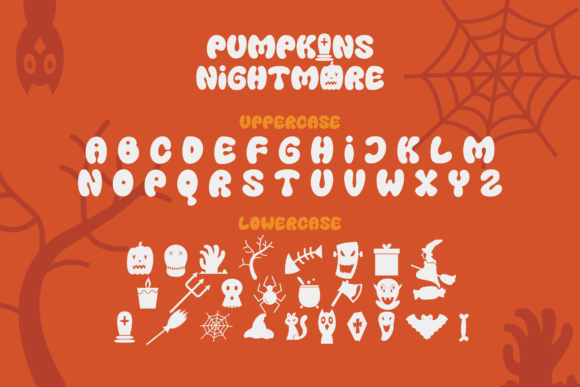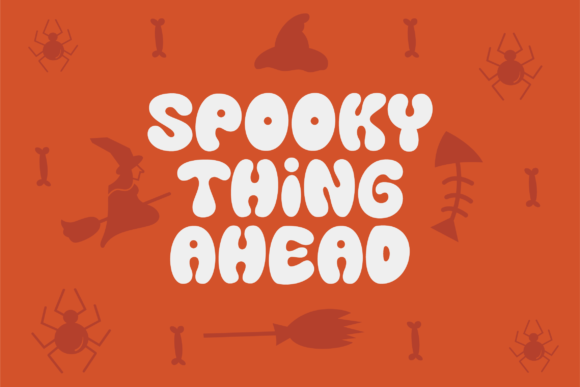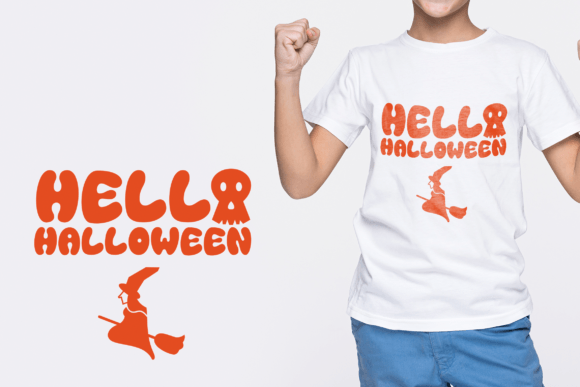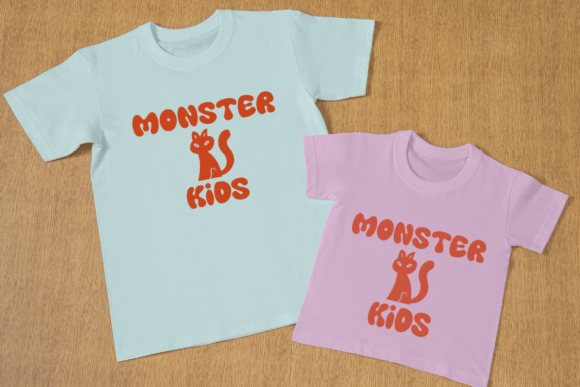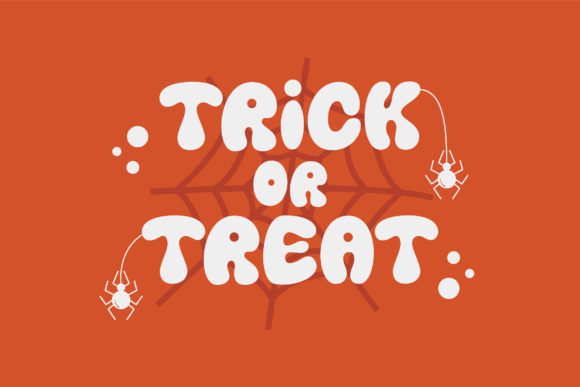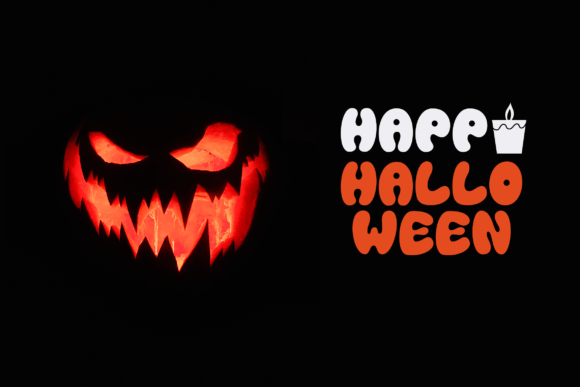
Introduction to Pumpkins Nightmare Font
Have you ever stared at a blank canvas, itching to bring your creative vision to life? It’s that moment when a spark of inspiration hits, and you’re desperate to find the perfect design resource to match your imagination. For designers and crafty enthusiasts, this moment can be a make-or-break experience – one that sets the tone for the entire project.
That’s where the enchanting Pumpkins Nightmare Font comes in – a bold and spooky display font that’s sure to captivate your audience. With its cute and playful letters, this high-quality font is perfect for adding a touch of whimsy to your Halloween crafts, horror movie posters, or any other creative project that requires a spectacular look.
Pumpkins Nightmare Font
- Unique, hand-drawn design perfect for a creative project, adding a touch of whimsy and playfulness.
- High-quality font with a transparent background, ideal for use on a variety of backgrounds.
- Features a bold, intricate design with a mix of curved and straight lines, making it perfect for titles and headings.
- Perfect for use in Halloween-themed designs, as well as other creative projects that require a spooky or mysterious feel.
Honest Review: Pumpkins Nightmare Font
I recently had the chance to work with the Pumpkins Nightmare Font, and I must say it’s been a wild ride. This high-quality font is perfect for any creative project that needs a touch of the macabre.
- What works well: ✨ The font’s unique design and bold lines make it perfect for titles, headings, and other prominent text. I also appreciate the transparent background option, which allows for seamless integration into any design.
- ⚠️ The font may be a bit too bold for smaller text, so be sure to adjust the size accordingly. This can be a bit of a challenge, but it’s not insurmountable.
- ⚠️ The font’s unique design may not be suitable for all projects, so be sure to consider your audience and the overall tone of your design.
Overall, I’m impressed with the Pumpkins Nightmare Font. It’s a great addition to any designer’s toolkit, and I would highly recommend it for any creative project that needs a touch of darkness and whimsy.
The Pumpkins Nightmare Font is perfect for use in creative projects, such as:
- Autumn or Halloween-themed designs
- Spooky or horror-themed designs
- Food or drink labels with a seasonal theme
To get the most out of the Pumpkins Nightmare Font, consider the following tips:
- Pair the font with other seasonal or spooky elements, such as images or graphics.
- Use the font in combination with other design elements to create a cohesive and visually appealing design.